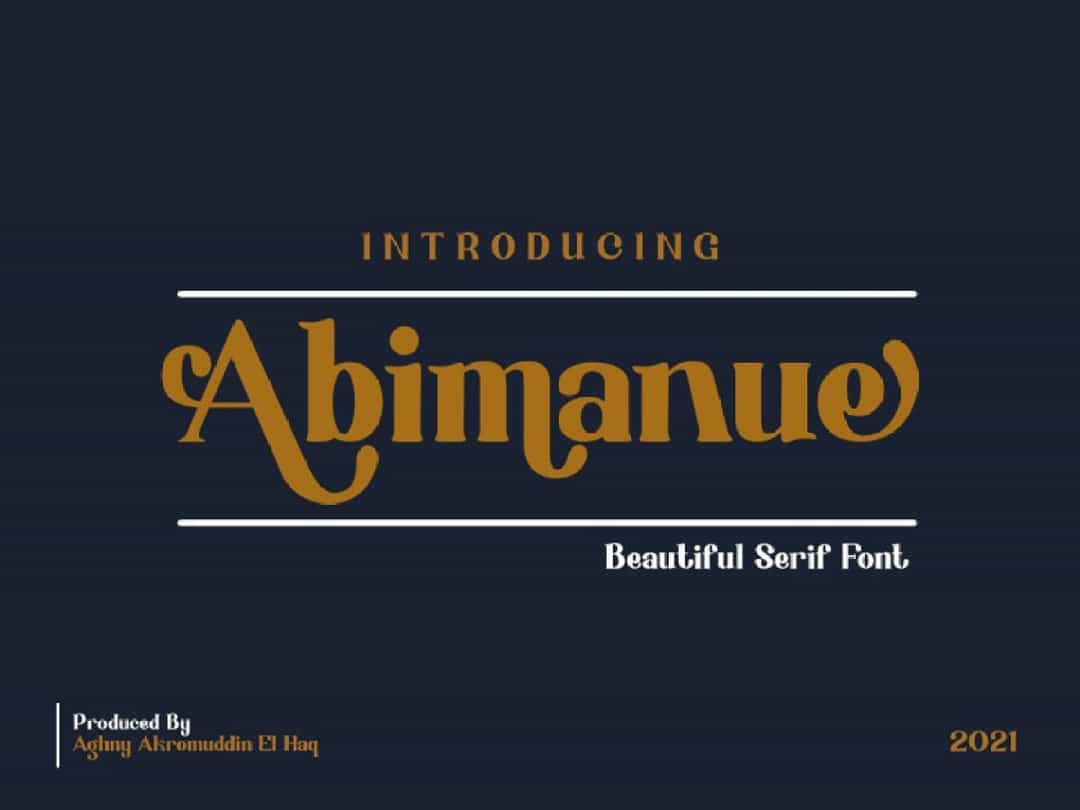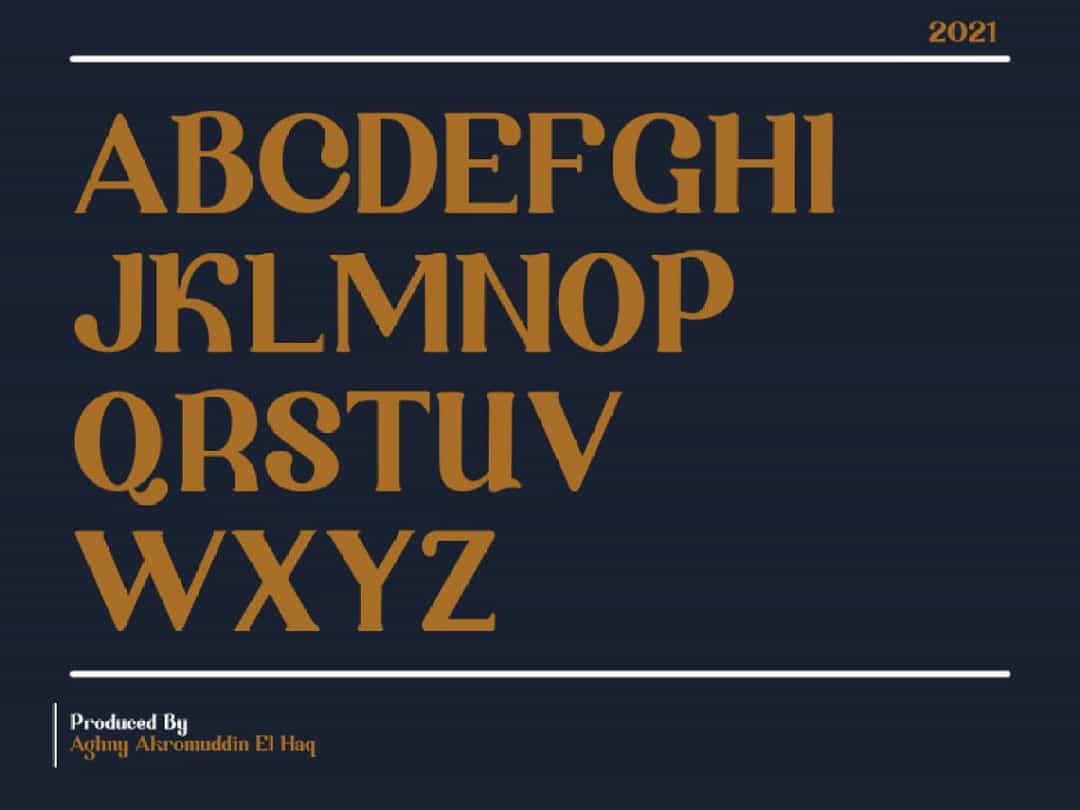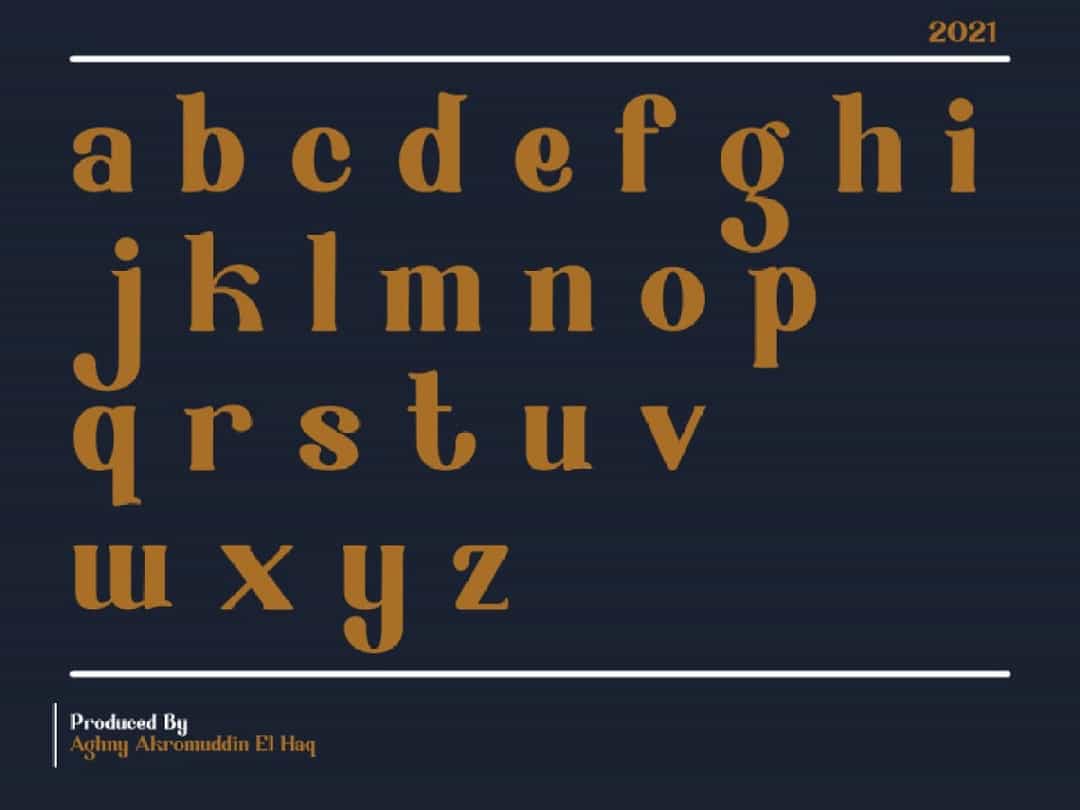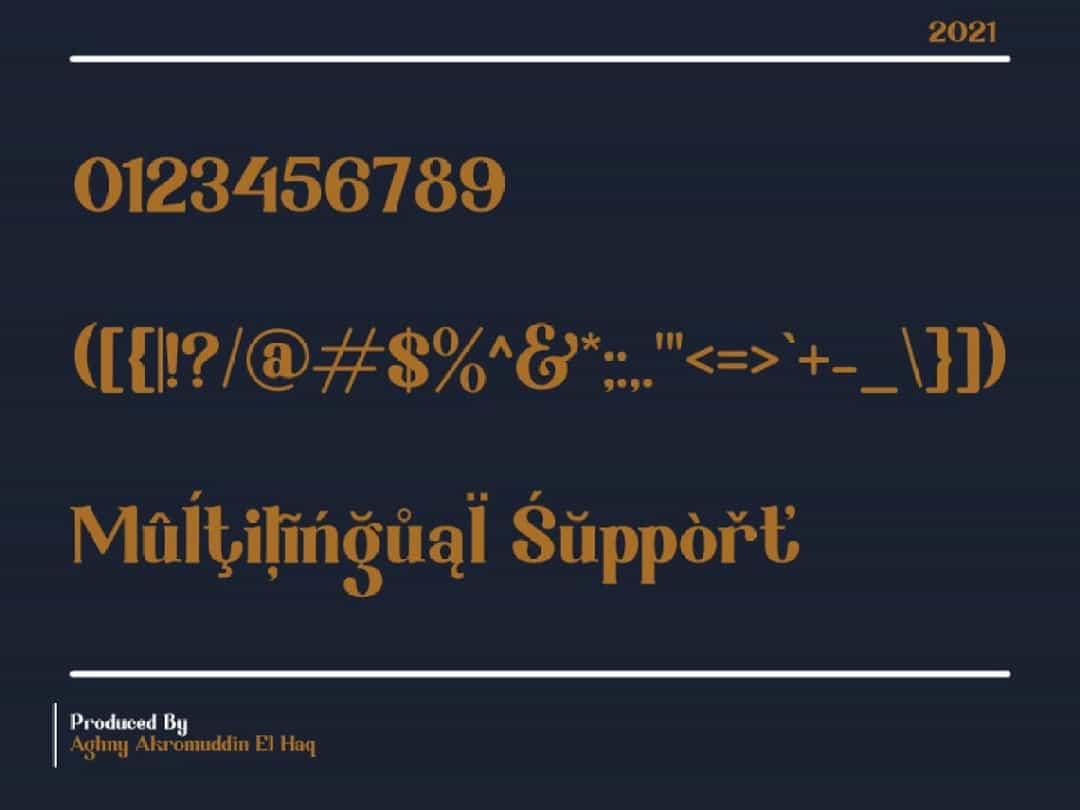
Abimanue is an exquisite authentic serif font designed by onlyfontyou, featuring PUA encoded characters and washes for your use! Fall in love with its incredible versatility before using it to craft outstanding designs!